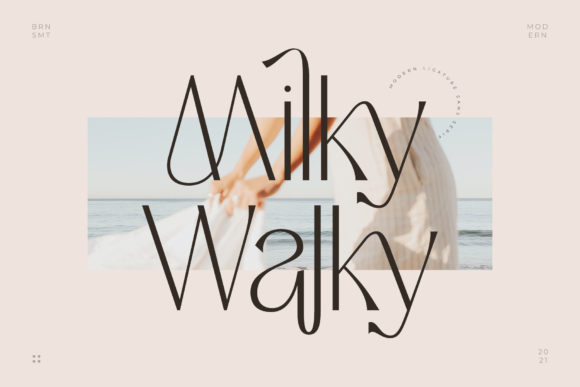
Milky Walky Font
**Introducing Milky Walky: The Quintessential Font for Unforgettable Occasions**
Indulge in the exquisite charm of Milky Walky, a modern sans serif font that radiates sophistication and elegance. This timeless typeface is meticulously crafted with sweeping curves, effortlessly capturing the essence of style and refinement.
Crafted with the utmost care by BrandSemut, Milky Walky is a masterpiece designed to elevate your creative endeavors. Its versatility knows no bounds, making it the perfect companion for a myriad of projects, from fashion branding to editorial designs.
Whether you seek to create enchanting wedding invitations, captivating social media posts, or stunning posters, Milky Walky has the power to transform your words into works of art. Its smooth, flowing lines evoke a sense of grace and fluidity, effortlessly capturing the attention of your audience.
By incorporating Milky Walky into your designs, you not only enhance their visual appeal but also imbue them with a touch of timeless allure. Its undeniable charm will leave a lasting impression, ensuring that your messages resonate with hearts and minds alike.
So, embark on a journey of creative expression with Milky Walky. Let its elegant strokes guide you toward unforgettable designs that captivate and inspire.